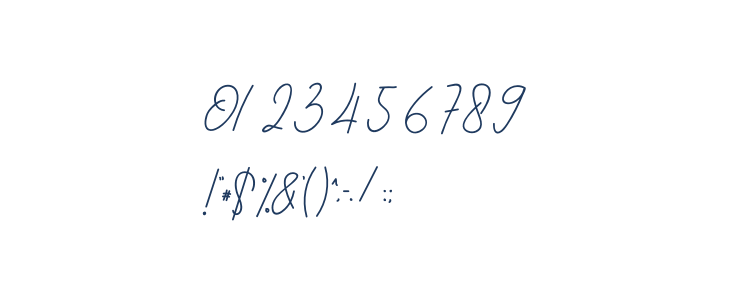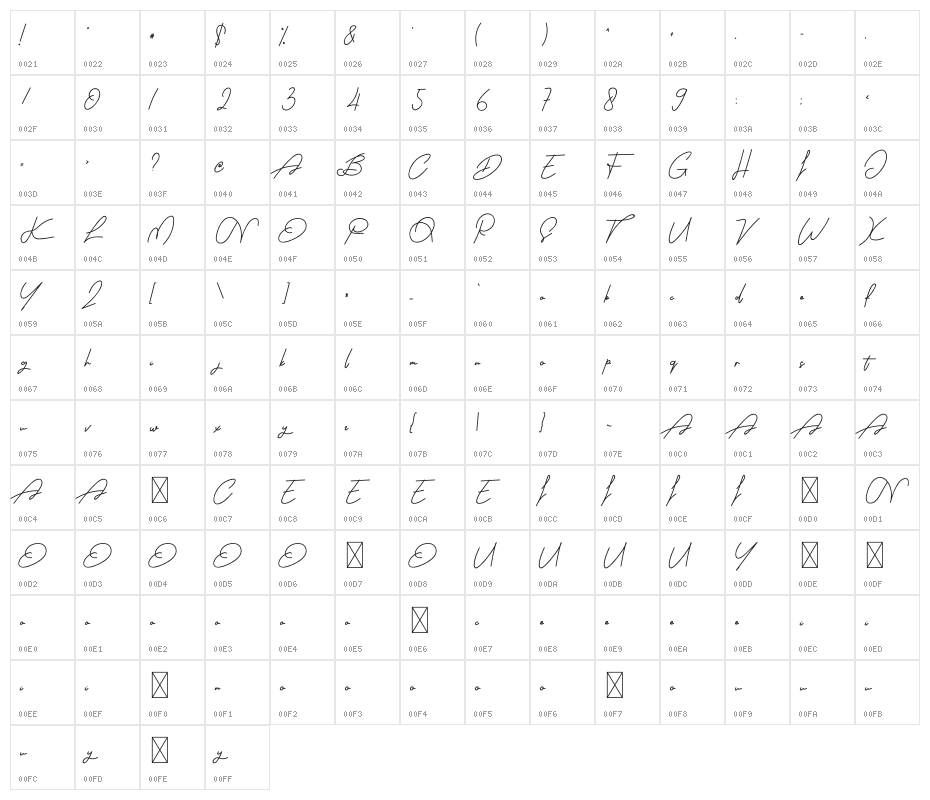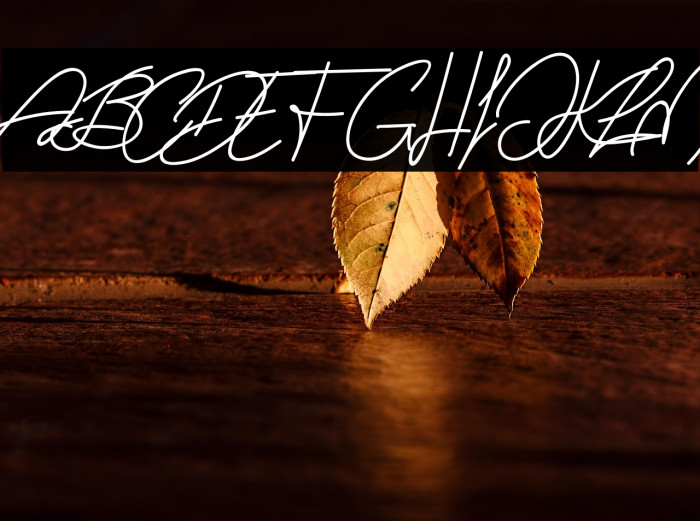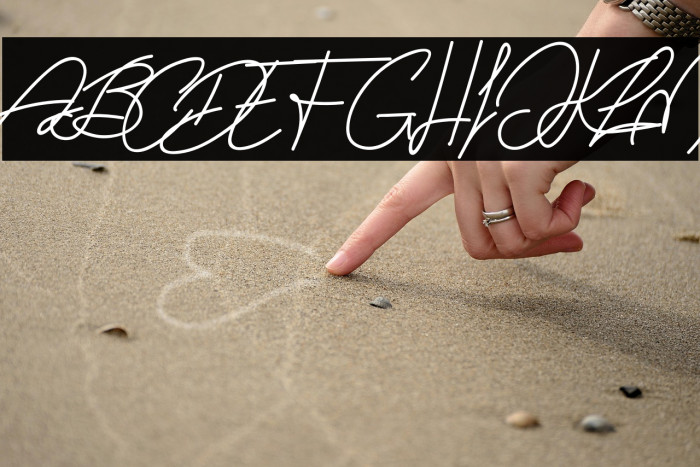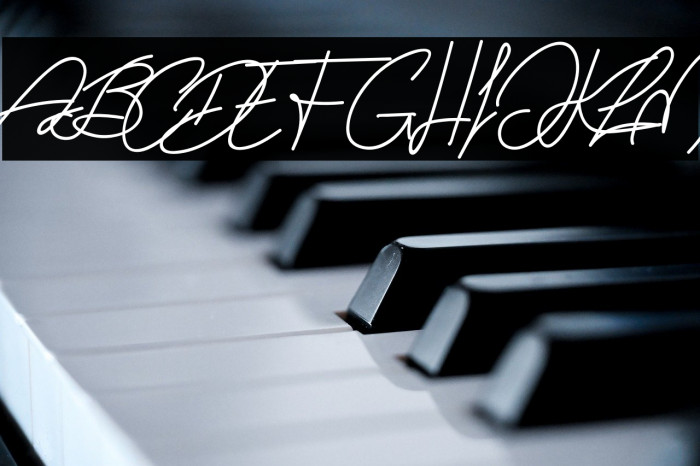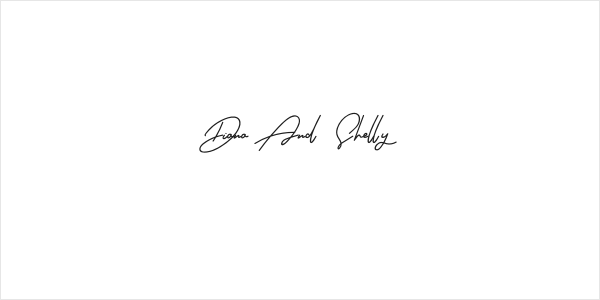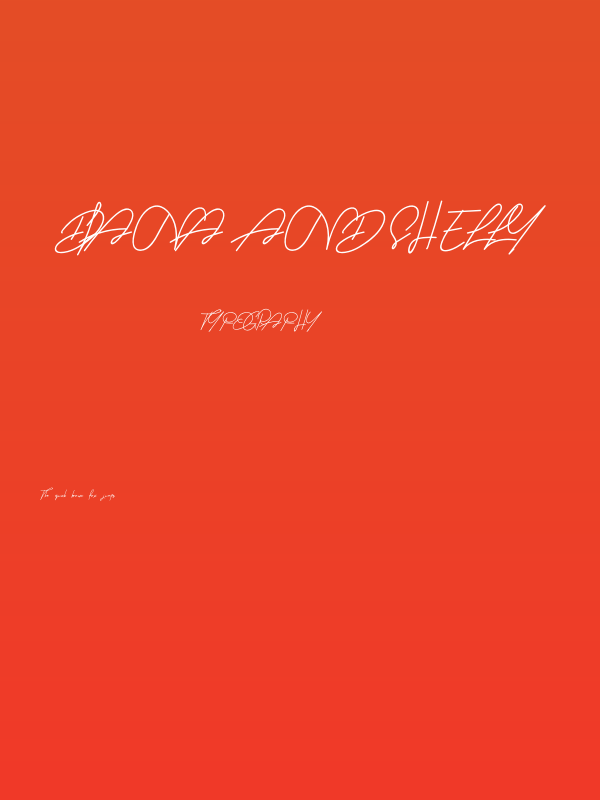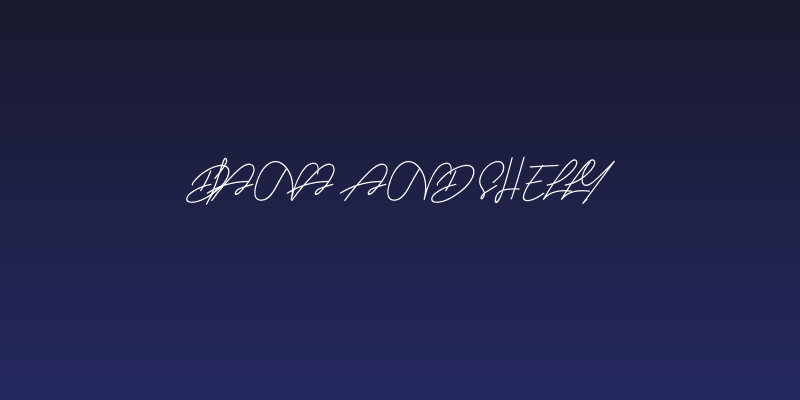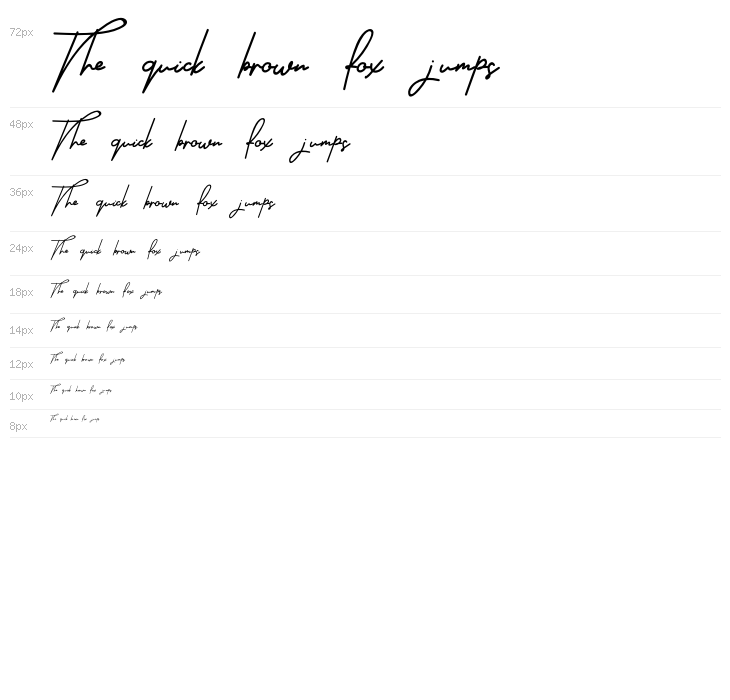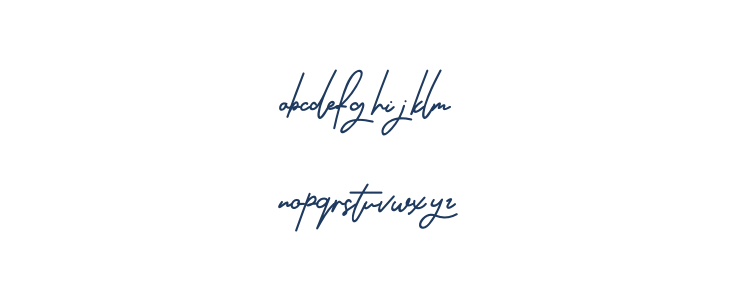
Diana And Shelly Font
Diana And Shelly Description
This font features an elegant and flowing script style, characterized by its cursive, handwritten appearance. The letters are interconnected, creating a seamless and fluid look. The uppercase letters are bold and prominent, while the lowercase letters maintain a delicate and graceful form. The numerals and special characters complement the overall aesthetic with their consistent style. This font exudes a sense of sophistication and charm, making it ideal for projects that require a personal touch.
| Overall Style | Elegant, Sophisticated |
| Proposed Projects | Ideal for wedding invitations, greeting cards, personal branding, and elegant packaging designs. |